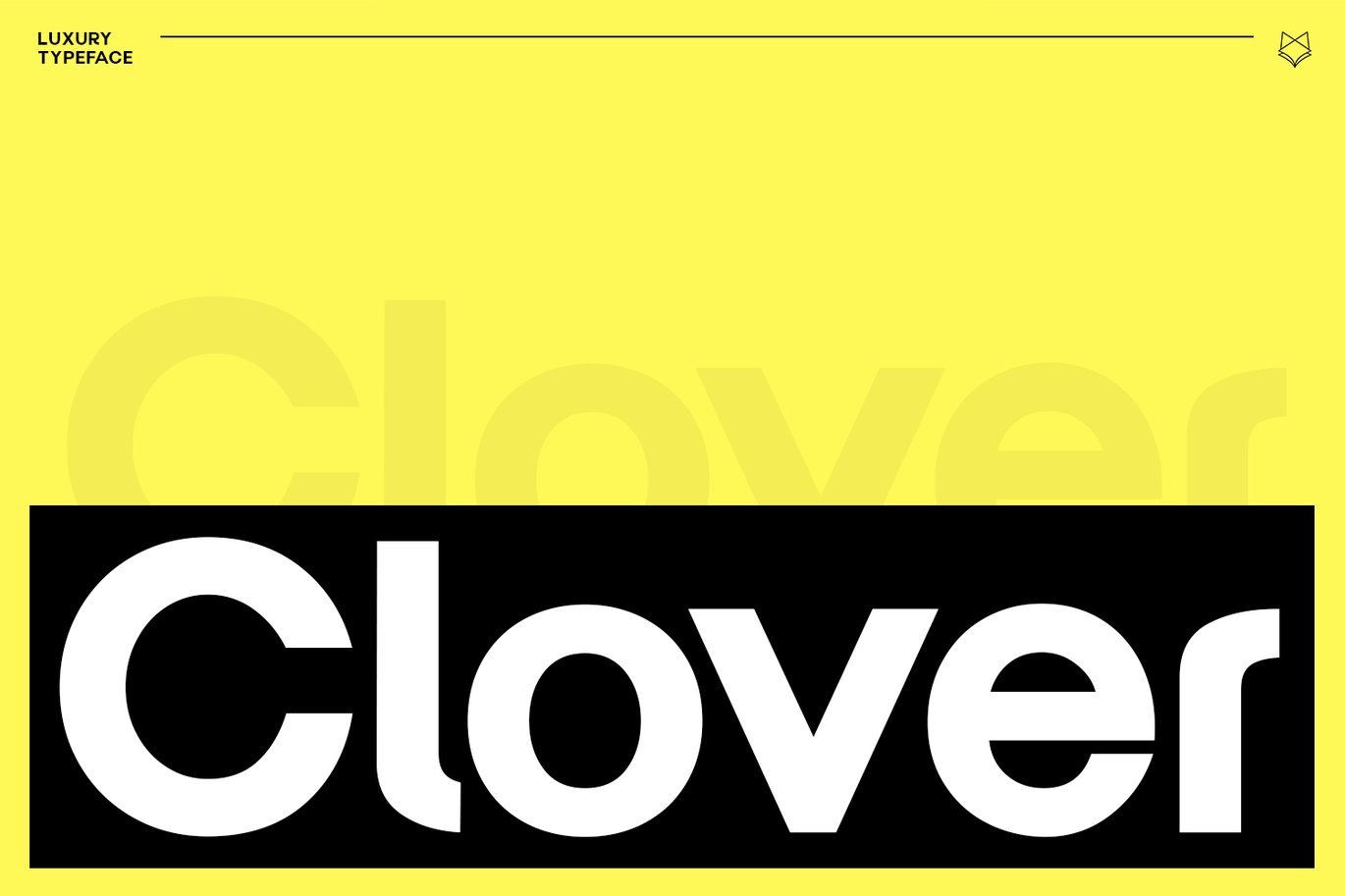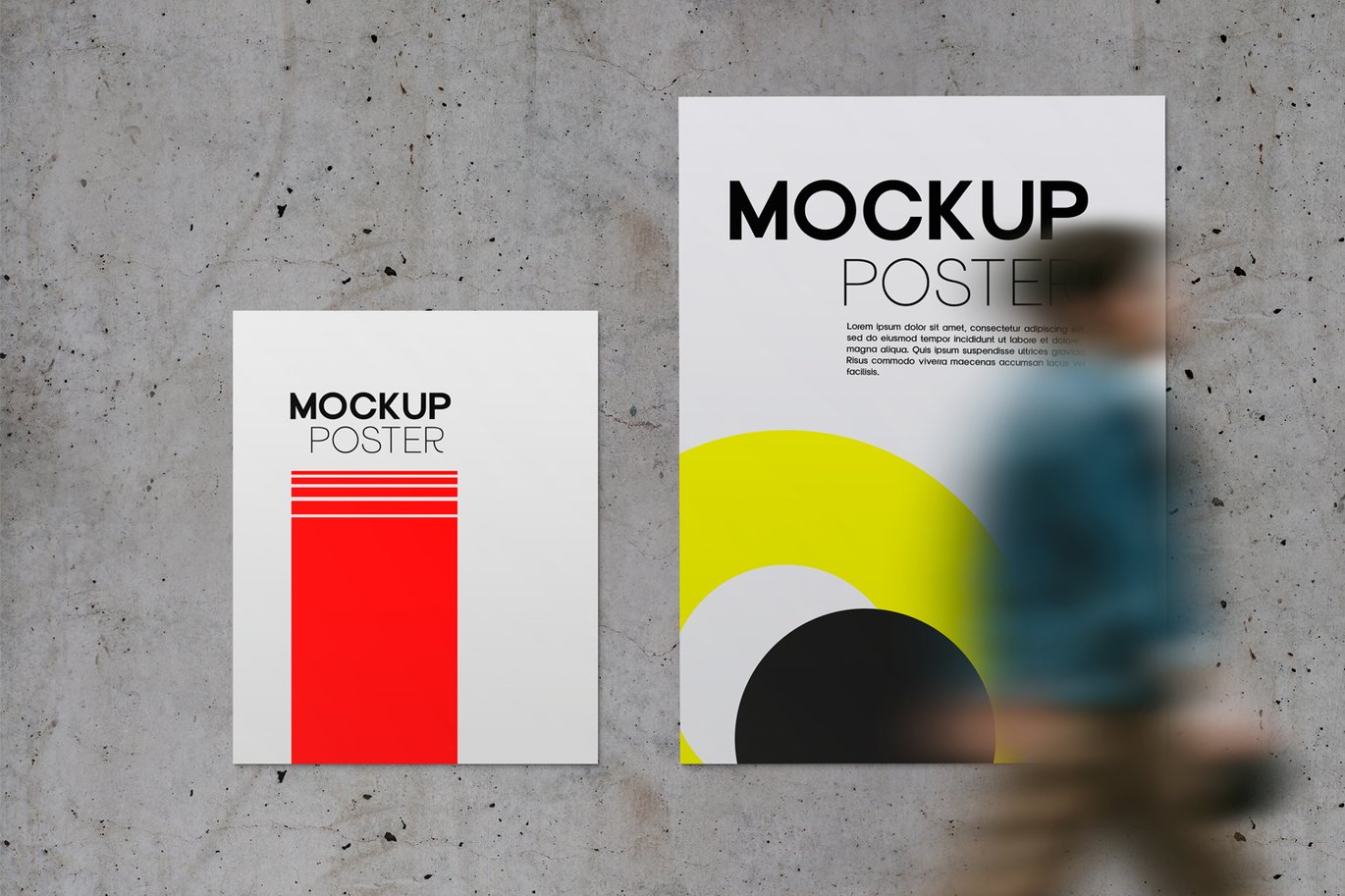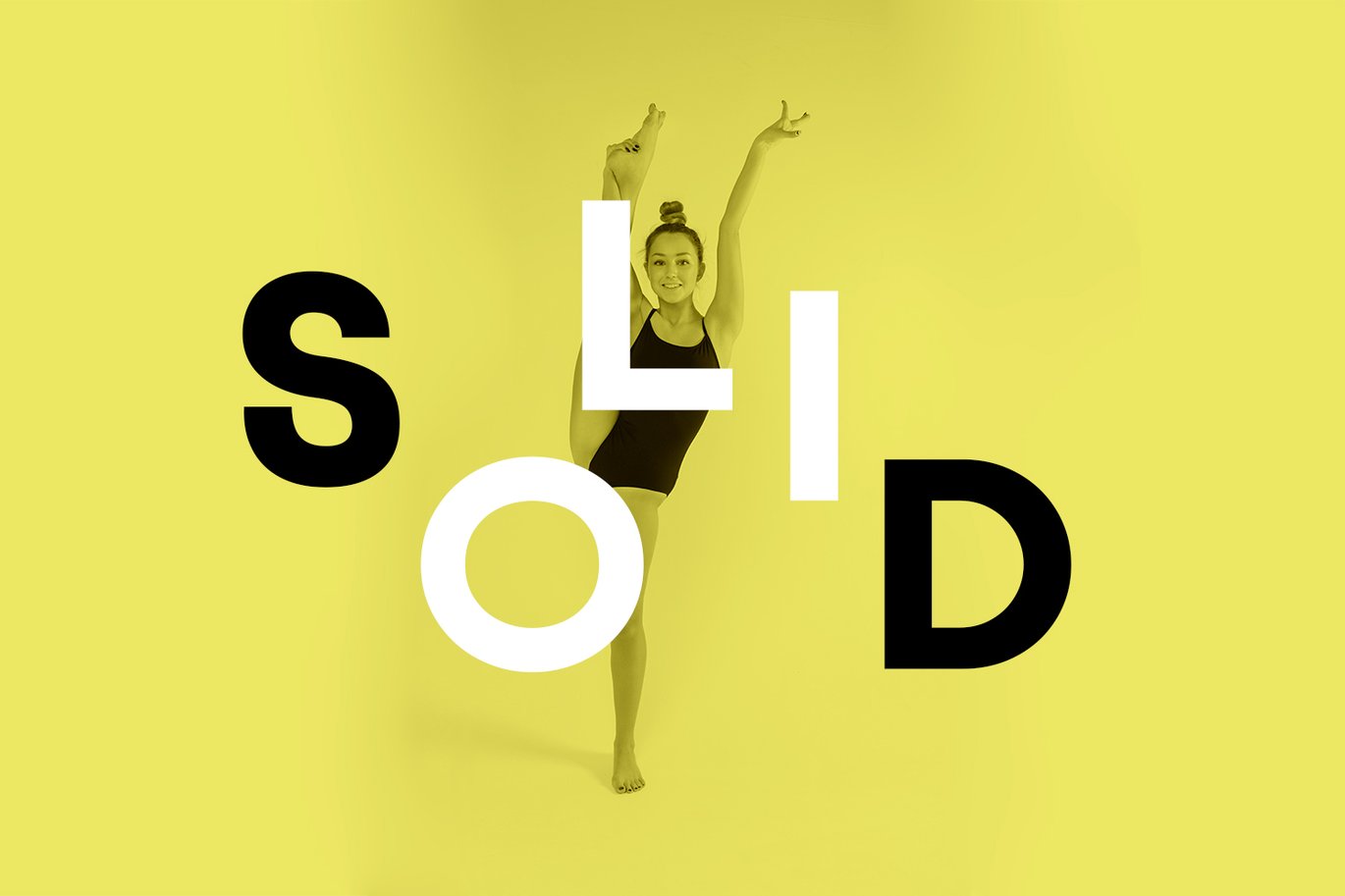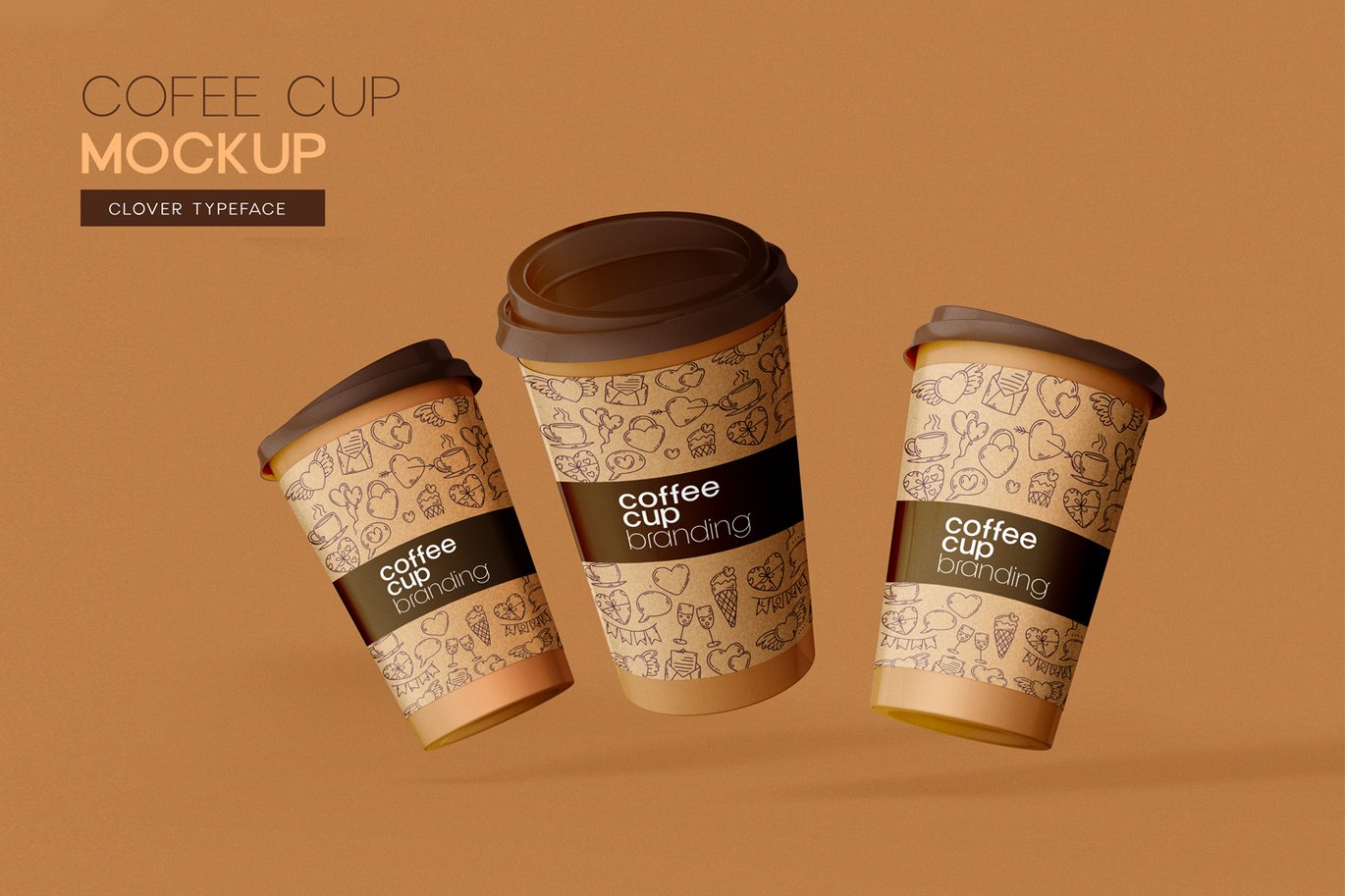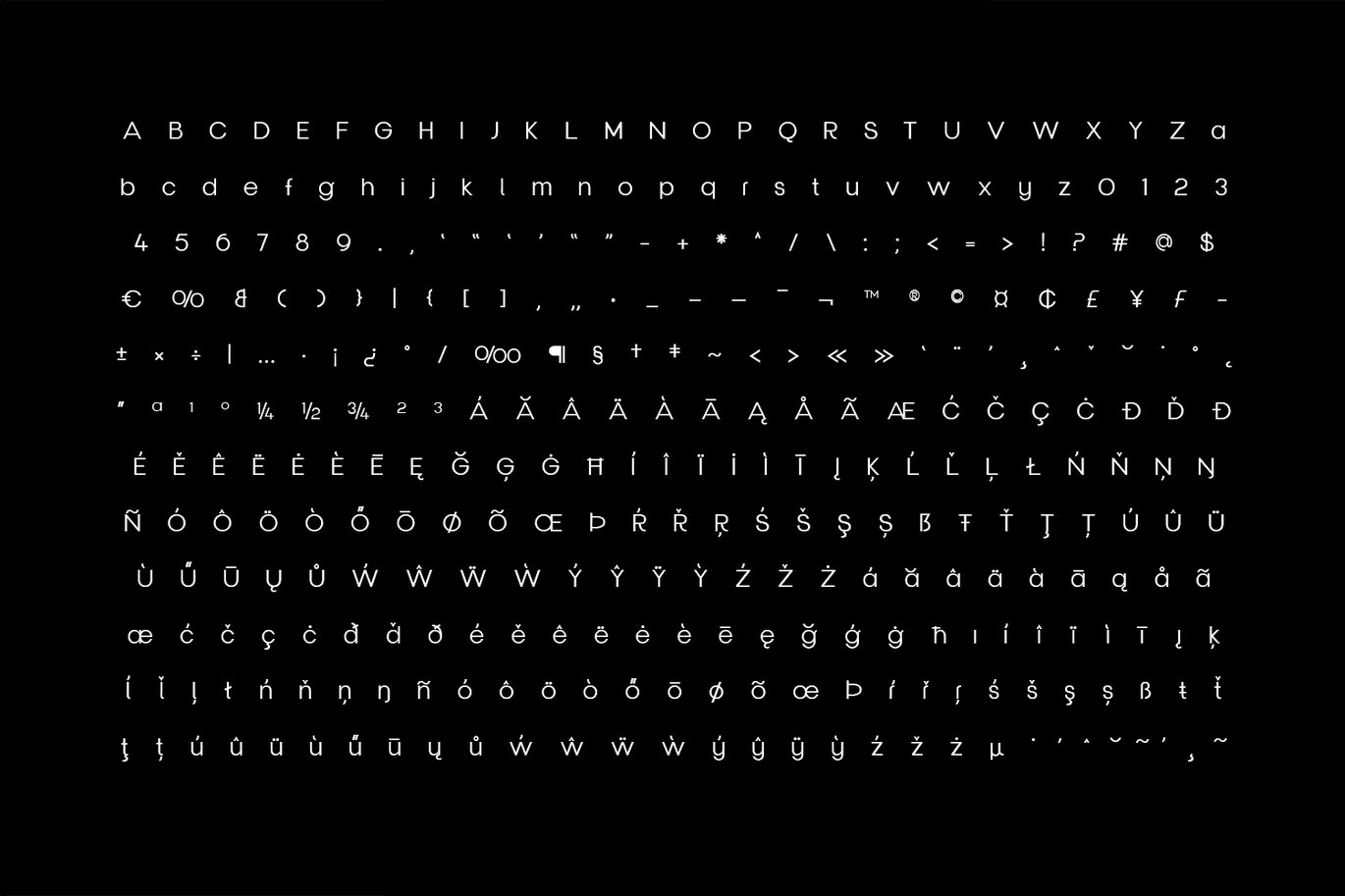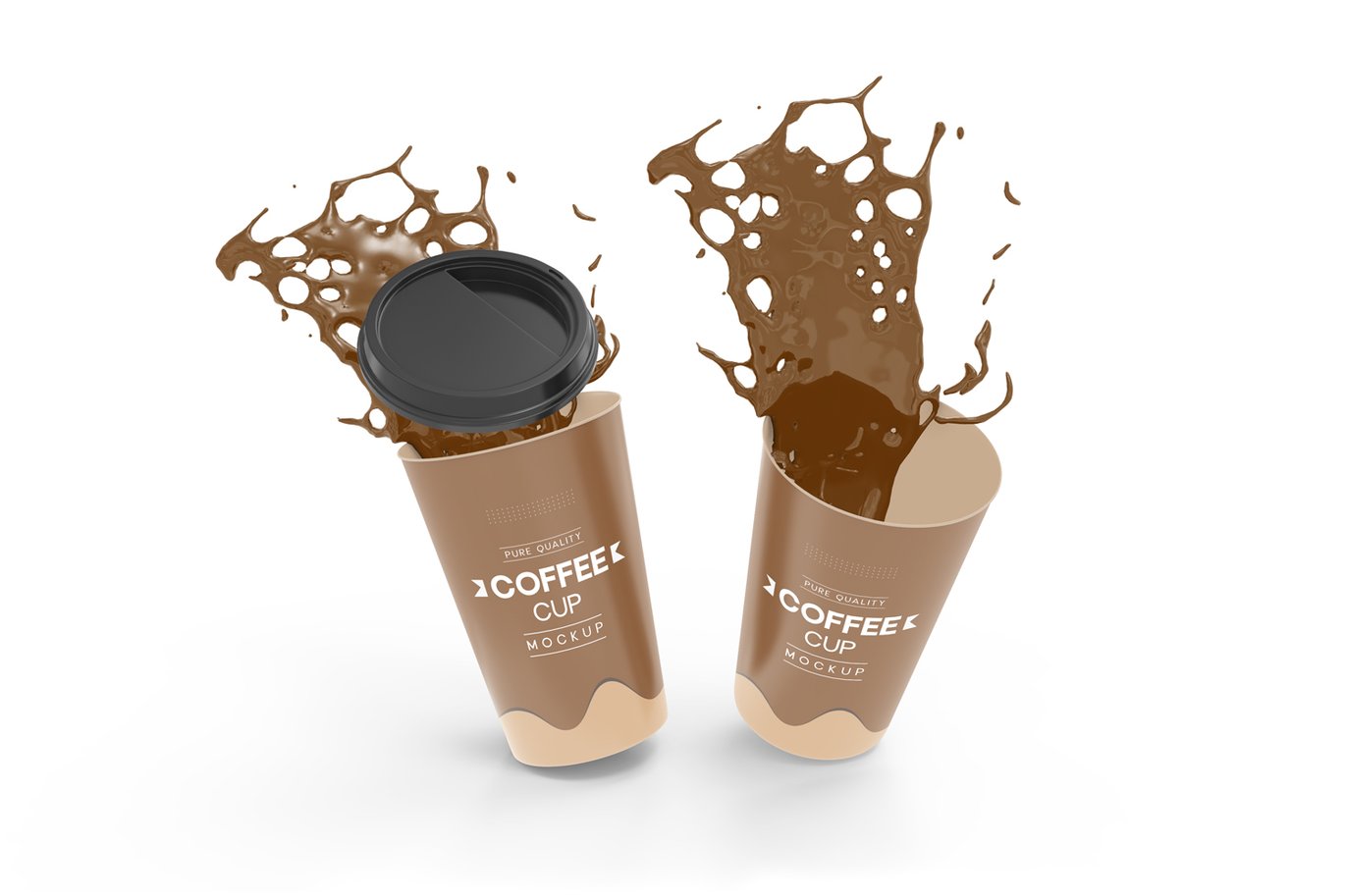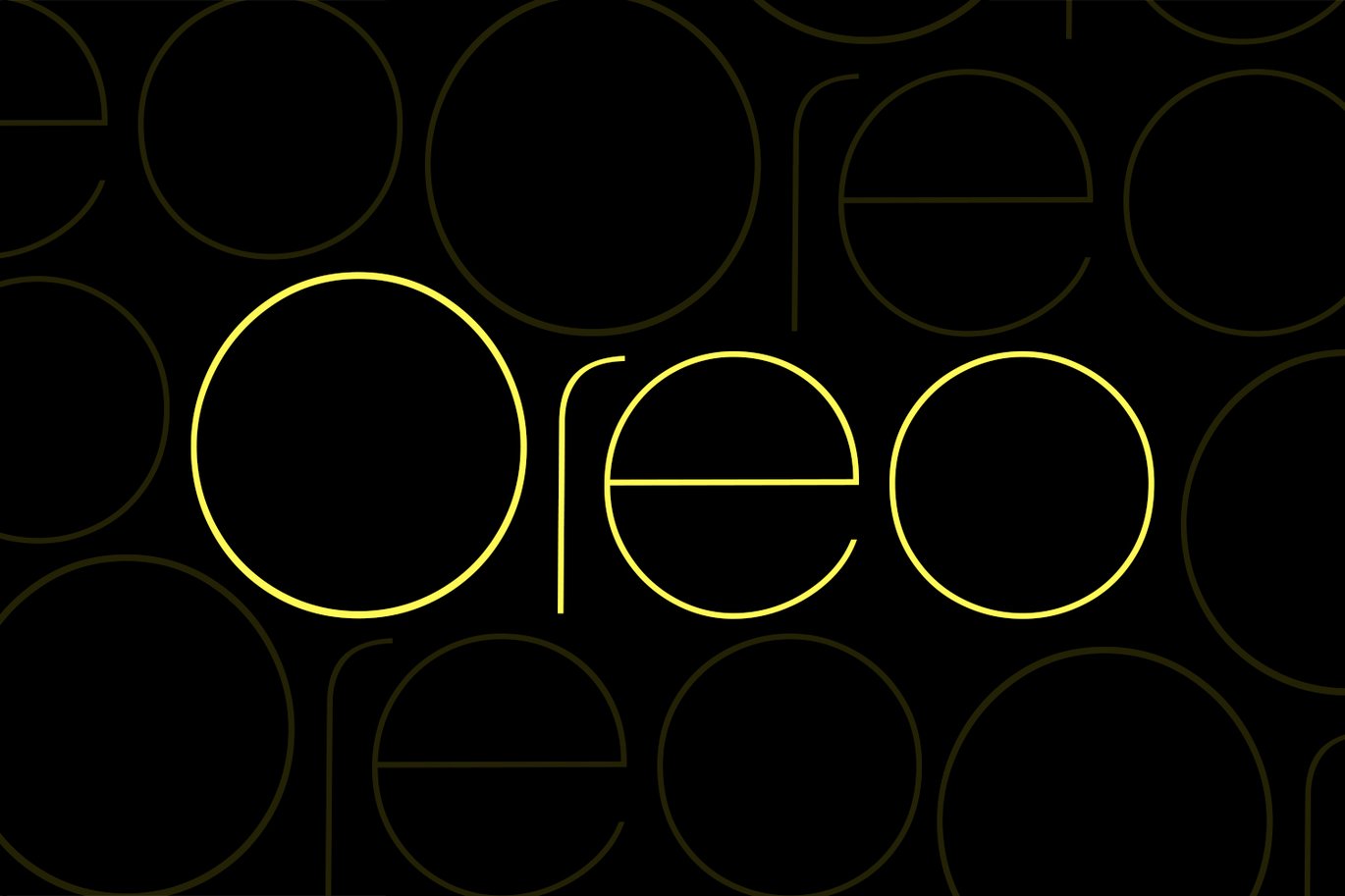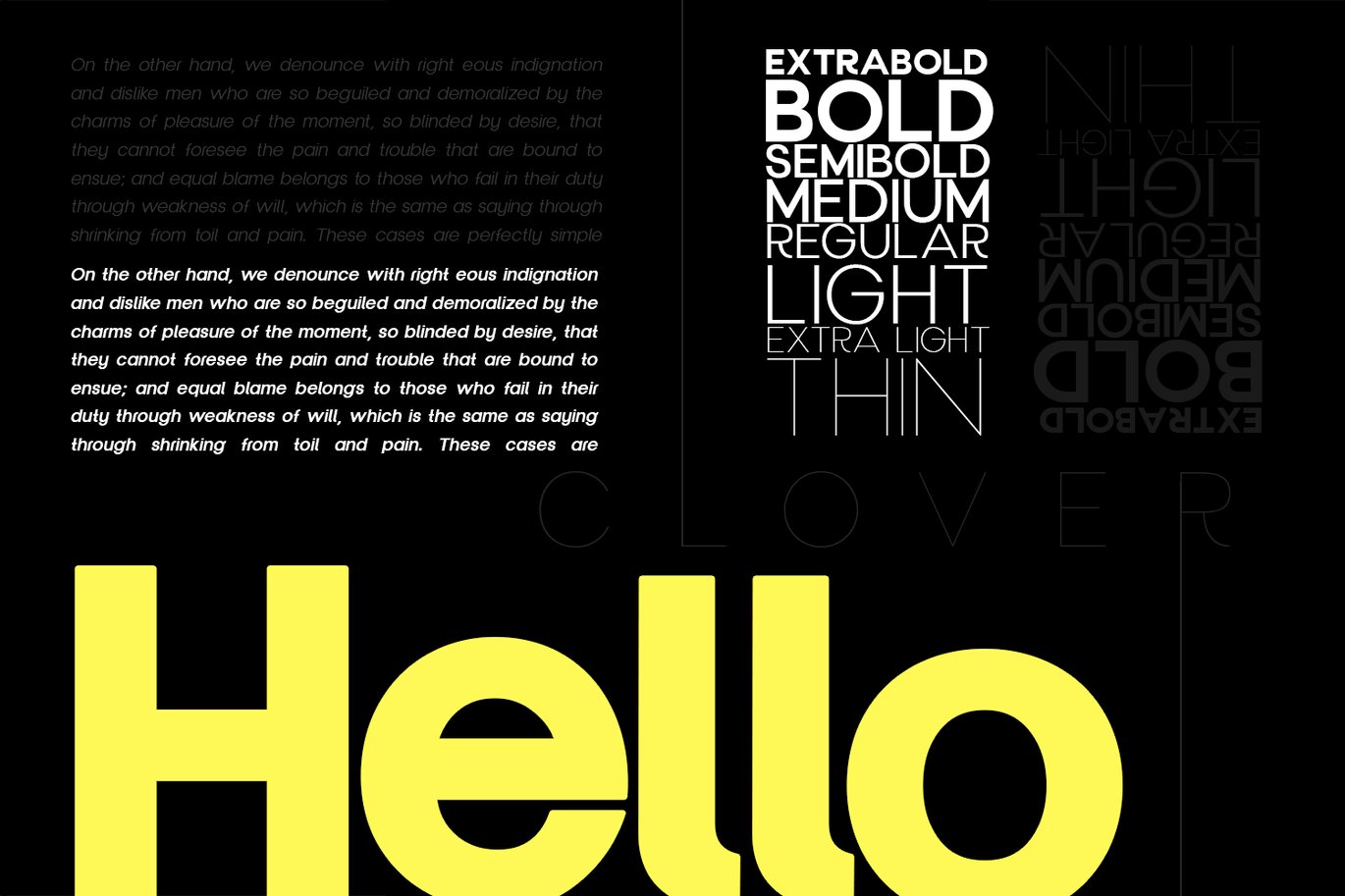
Clover Display Typeface
Clover Display is a Unique Modern Elegant Typeface with Web-fonts which derived from Olive Typeface Family. It’s a very versatile font that works great in large and small sizes. Clover Font would perfect for branding, logos, headlines, Captions, paragraph, magazine covers, film posters. or simply as a stylish text overlay to any background image. Strong capitals and a smooth, open lowercase are effective in a variety of applications. It’s shown a clean, minimalist, warmth, quirky, yet still purposed to be versatile and easy to read.
Clover Typeface crafted with 08 Weights, 16 Styles ( Italics Included ).